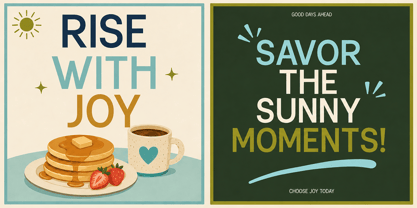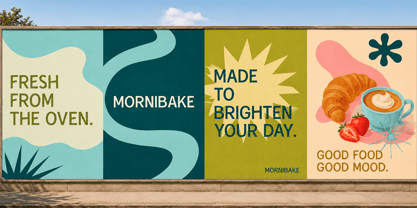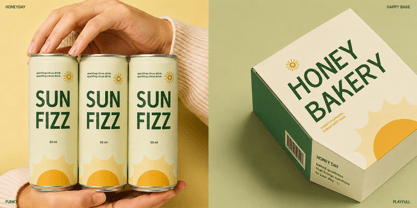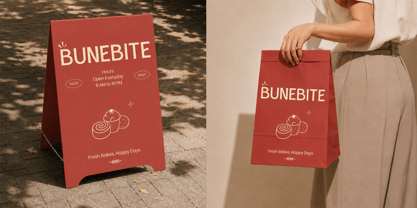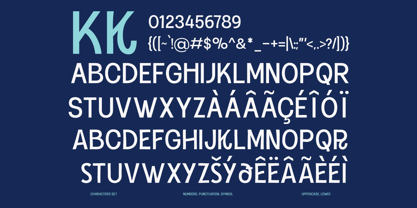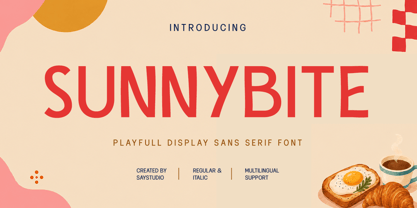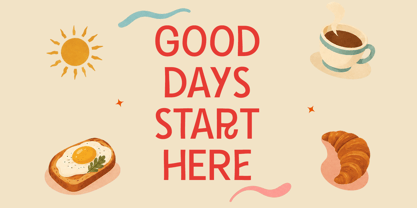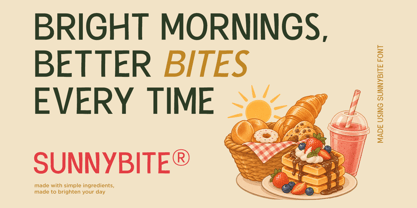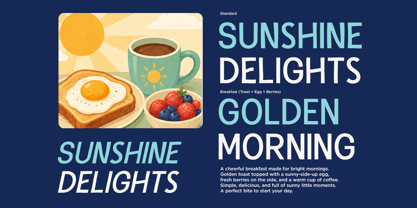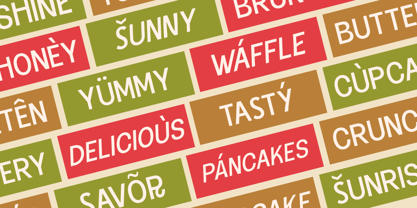
Sunnybite
Die Schriftfamilie Sunnybite wurde von Mussyayin entworfen und von Say Studio veröffentlicht. Sunnybite enthält 2 Stile und Familienpaketoptionen. Mehr über diese Familie
Sunnybite is a playful display font designed to bring a cheerful and friendly personality to your creative projects. With its warm, expressive character and eye-catching letterforms, Sunnybite is perfect for designs that need a fun, fresh, and inviting visual style.
Perfect for bakery branding, food packaging, café menus, restaurant identities, posters, editorial layouts, advertising, product labels, social media graphics, and lifestyle branding. Its distinctive display style works beautifully for headlines, logos, packaging titles, promotional campaigns, and short impactful messages.
Sunnybite is made for brands and designers looking to create a bright, delicious, and approachable aesthetic. Whether you're designing a bakery identity, breakfast campaign, food product, or cheerful editorial project, Sunnybite adds a playful touch that helps your typography stand out.
• Regular and Italic
• Special Alternates
• Uppercase and Lowercase
• Number, Symbol, and Punctuation
• Multilingual Support
Designer: Mussyayin
Foundry: Say Studio